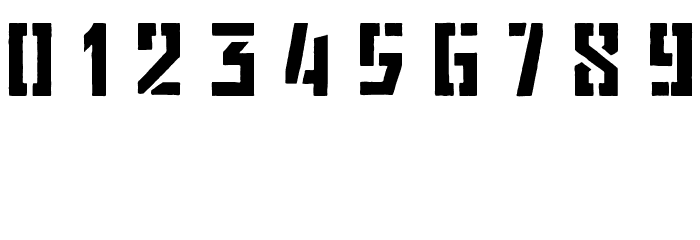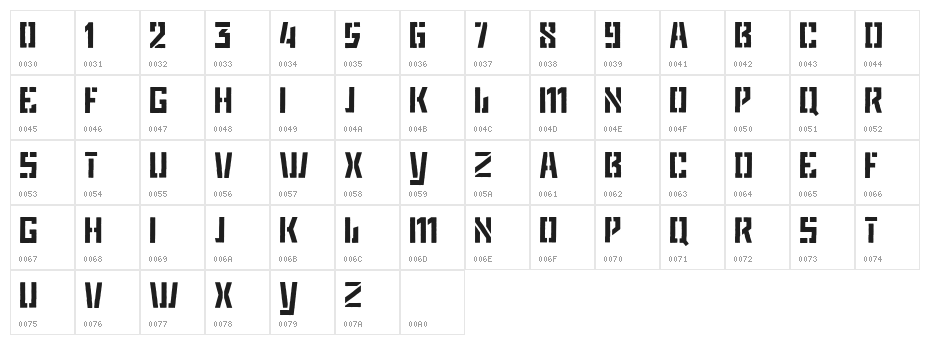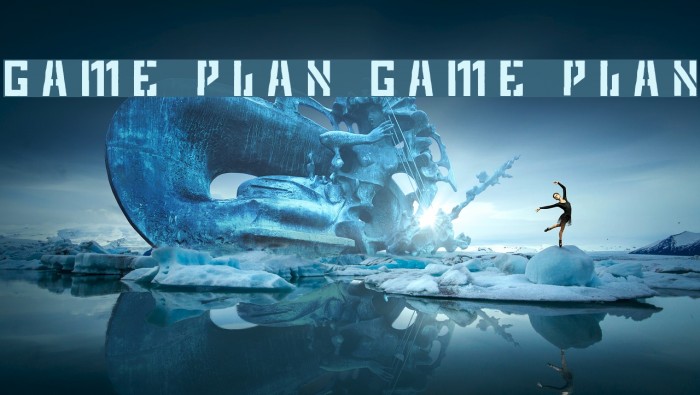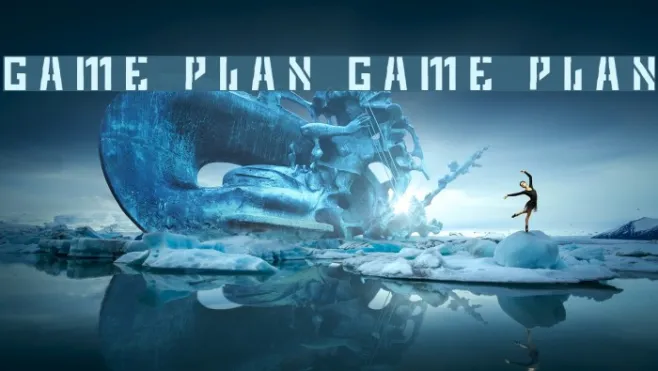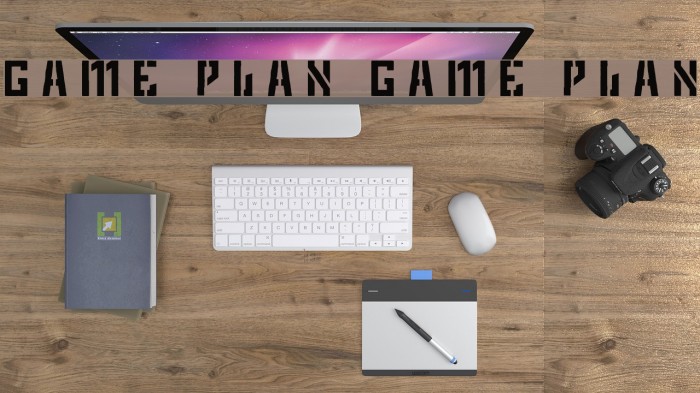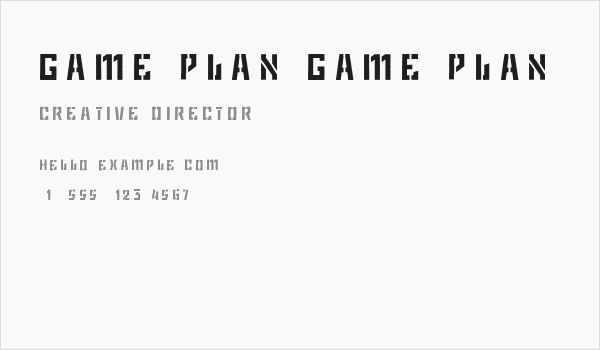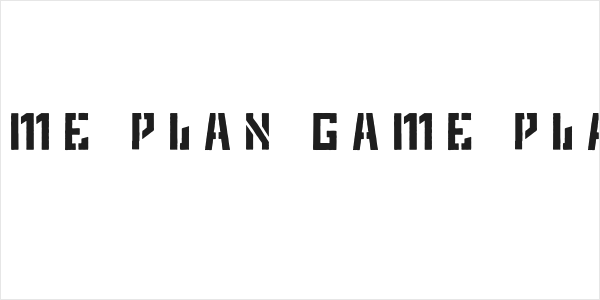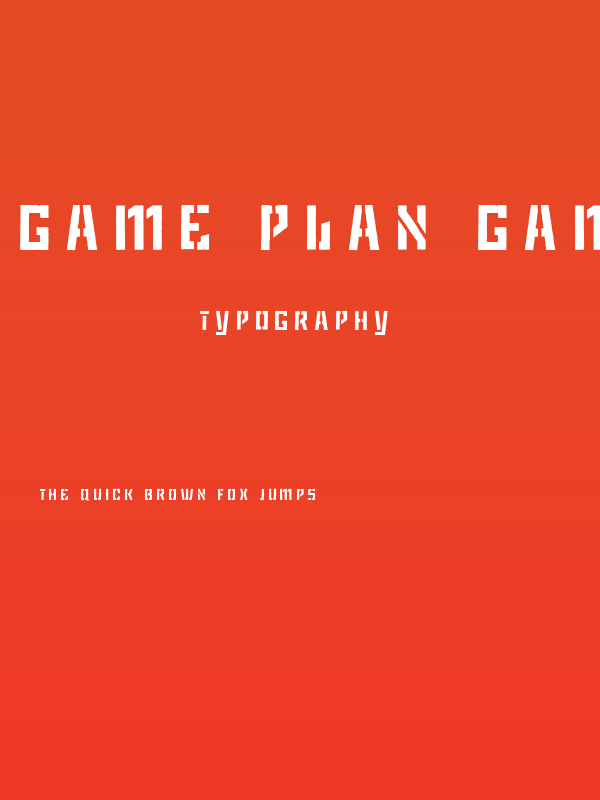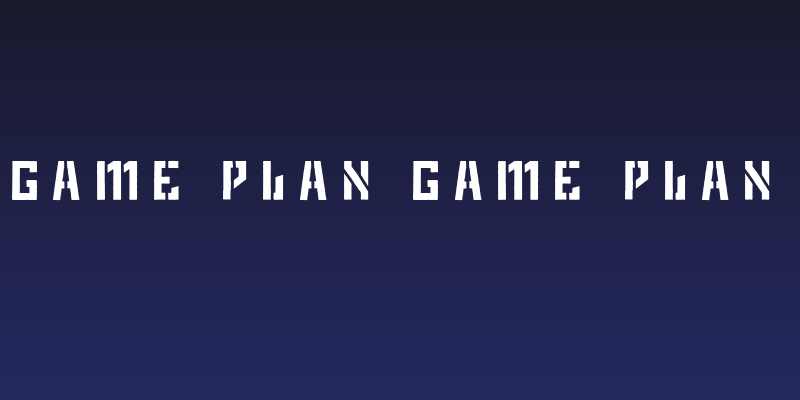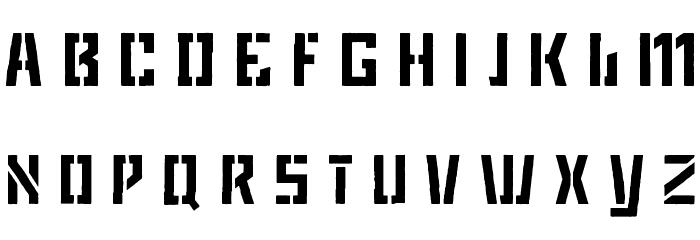
Game Plan game plan Font
Game Plan game plan Description
This font features a bold, geometric design with a stencil-like appearance. Each character is constructed with sharp, angular lines and distinct cut-out sections, giving it a rugged, industrial feel. The uppercase and lowercase letters maintain a consistent style, with the lowercase mirroring the uppercase in form and structure. Numbers follow the same design principles, ensuring uniformity across all characters. The font's unique style makes it stand out, suitable for projects that require a strong, impactful visual presence.
| Overall Style | Industrial, Modern |
| Proposed Projects | Ideal for branding, posters, signage, and any design needing a bold, industrial aesthetic. |